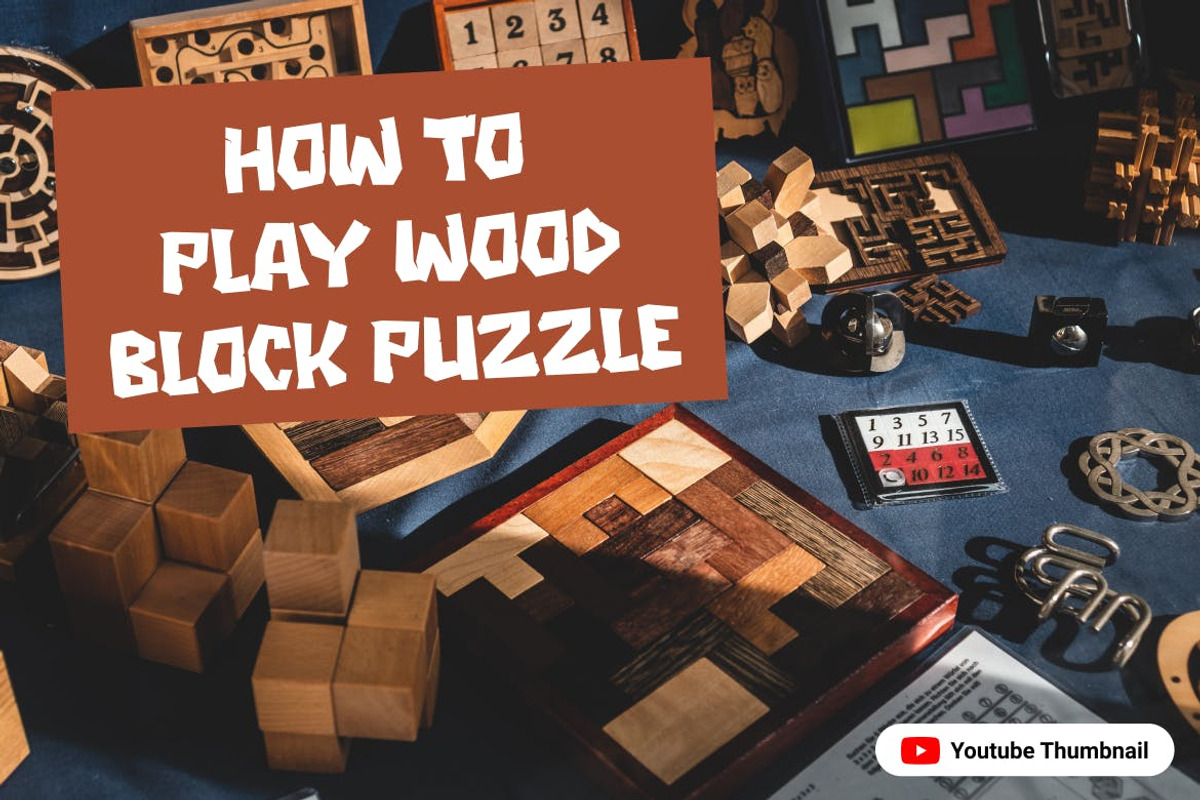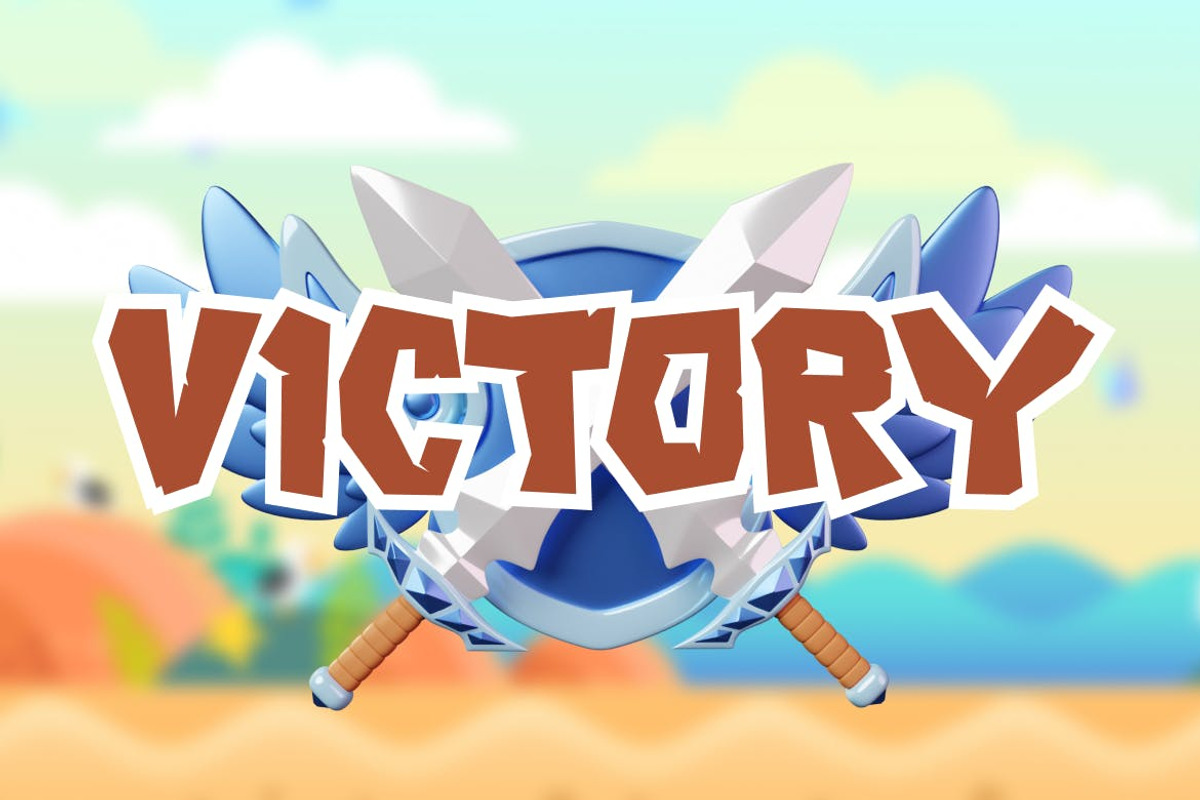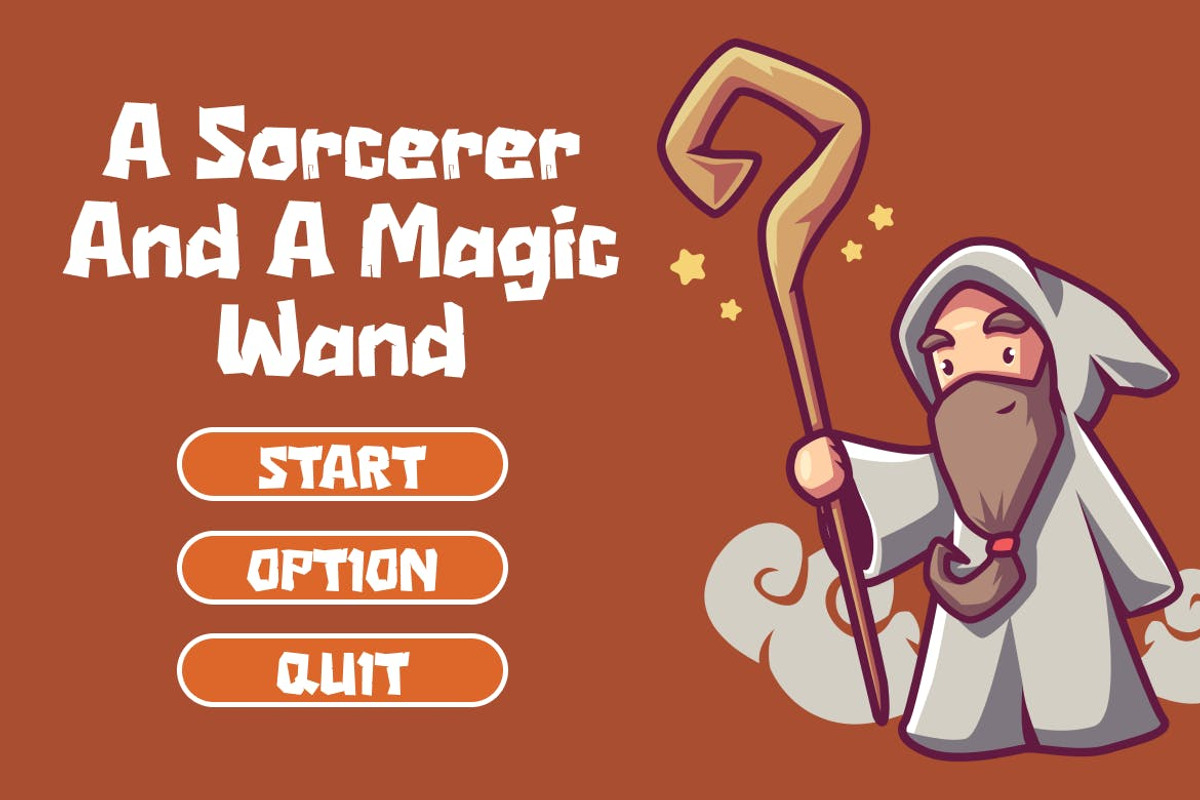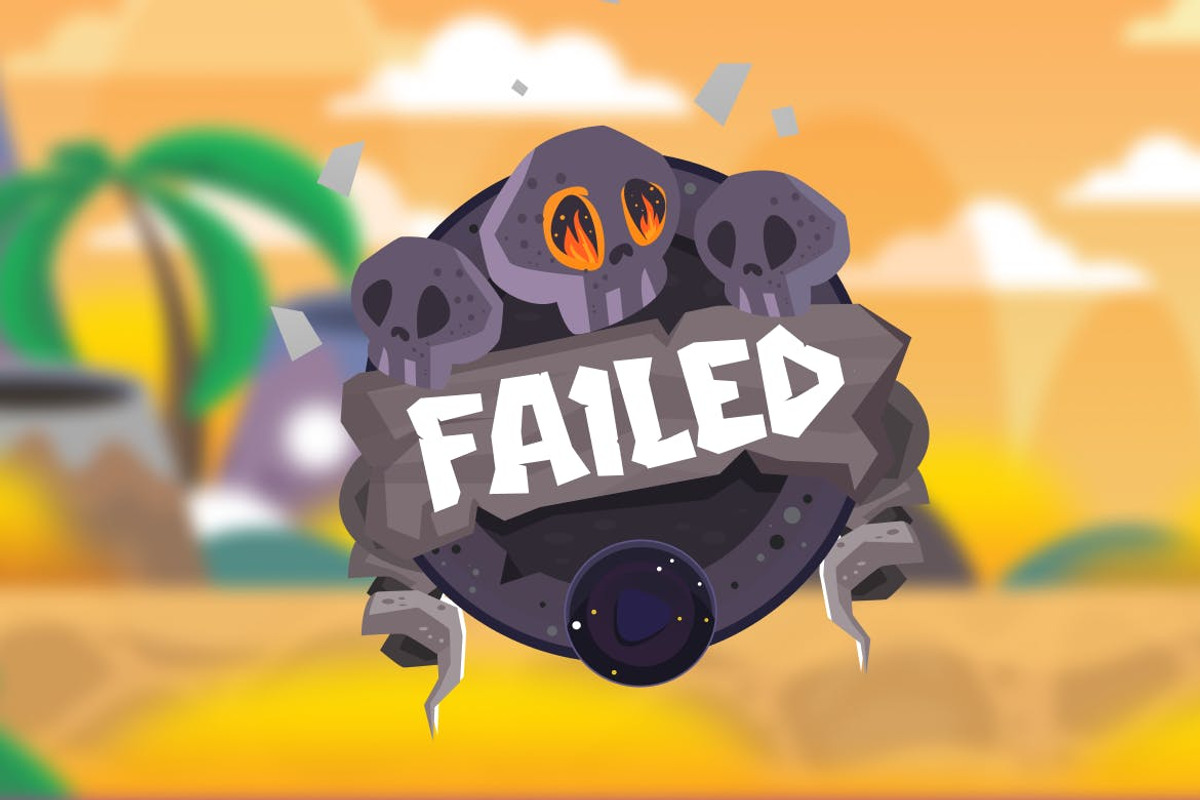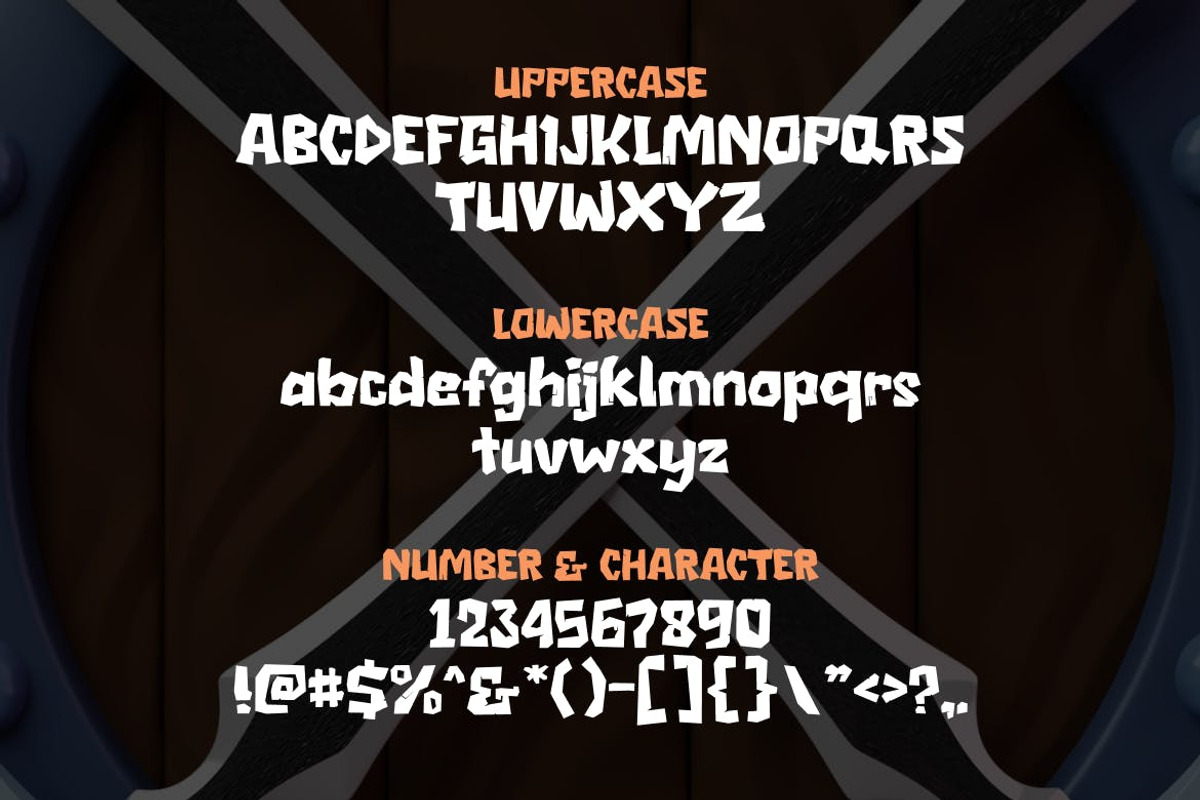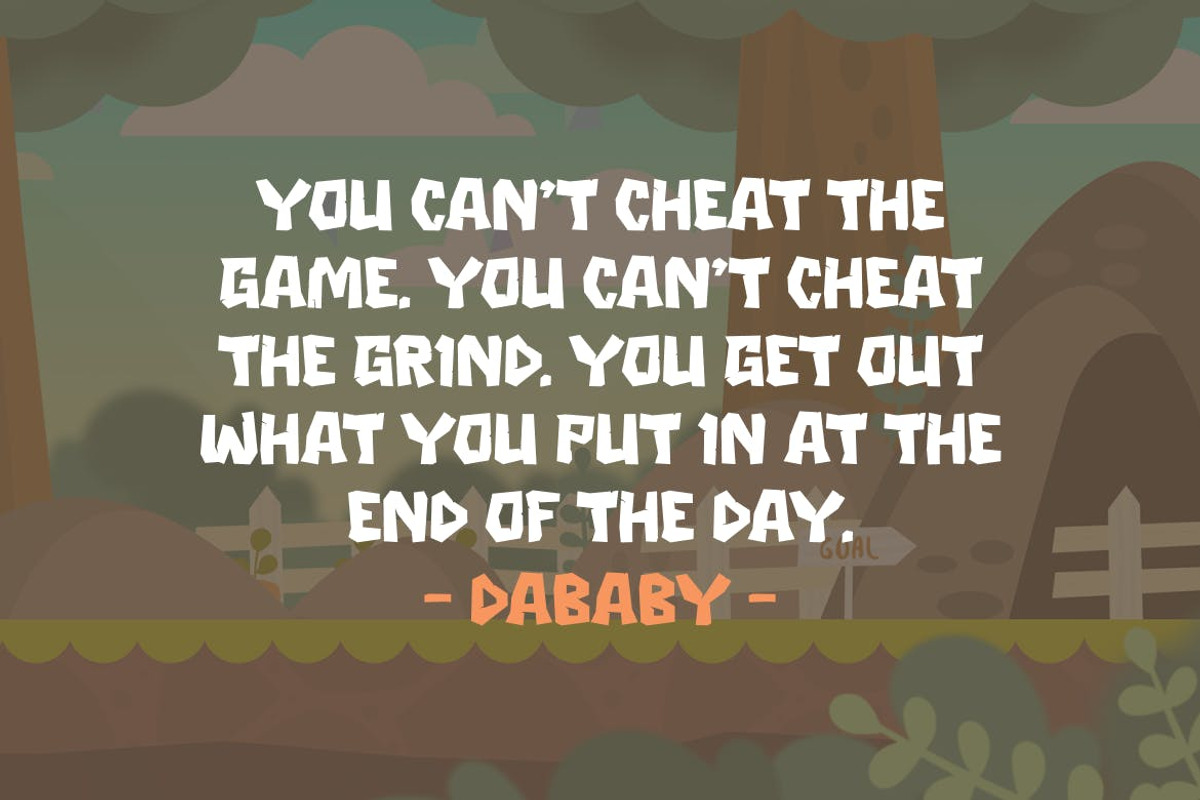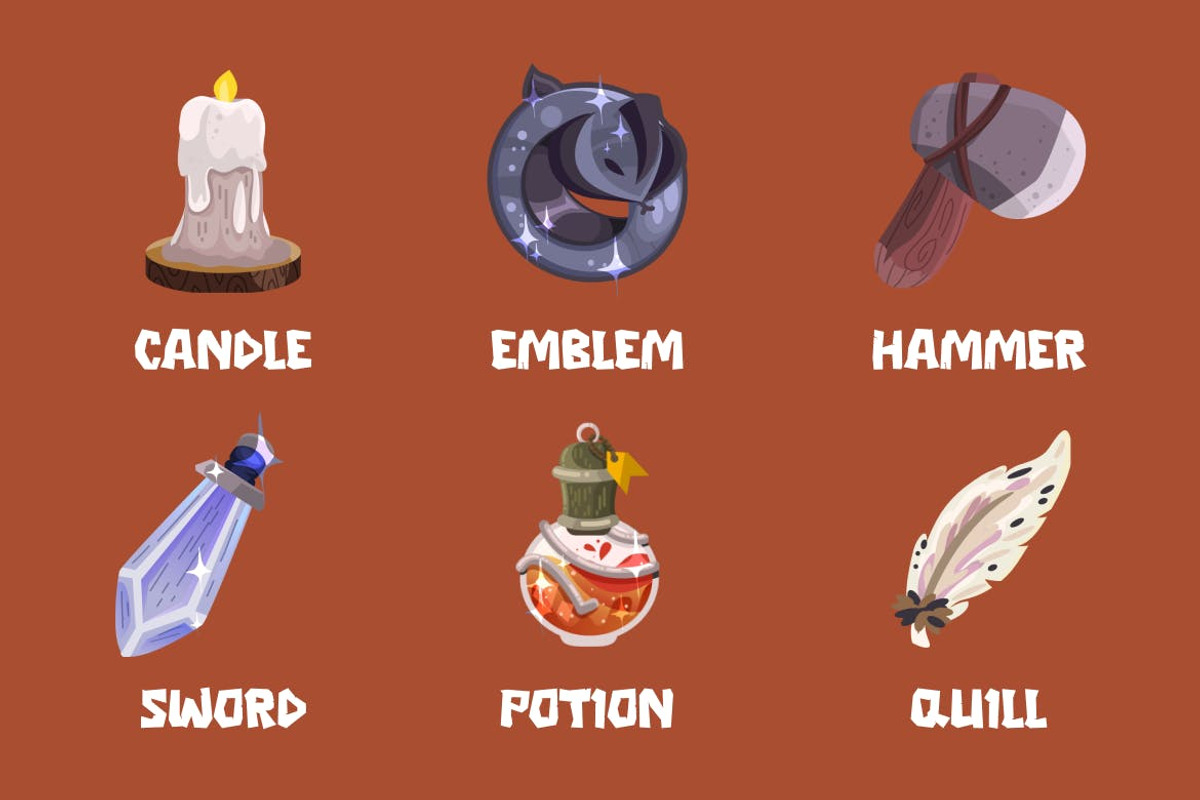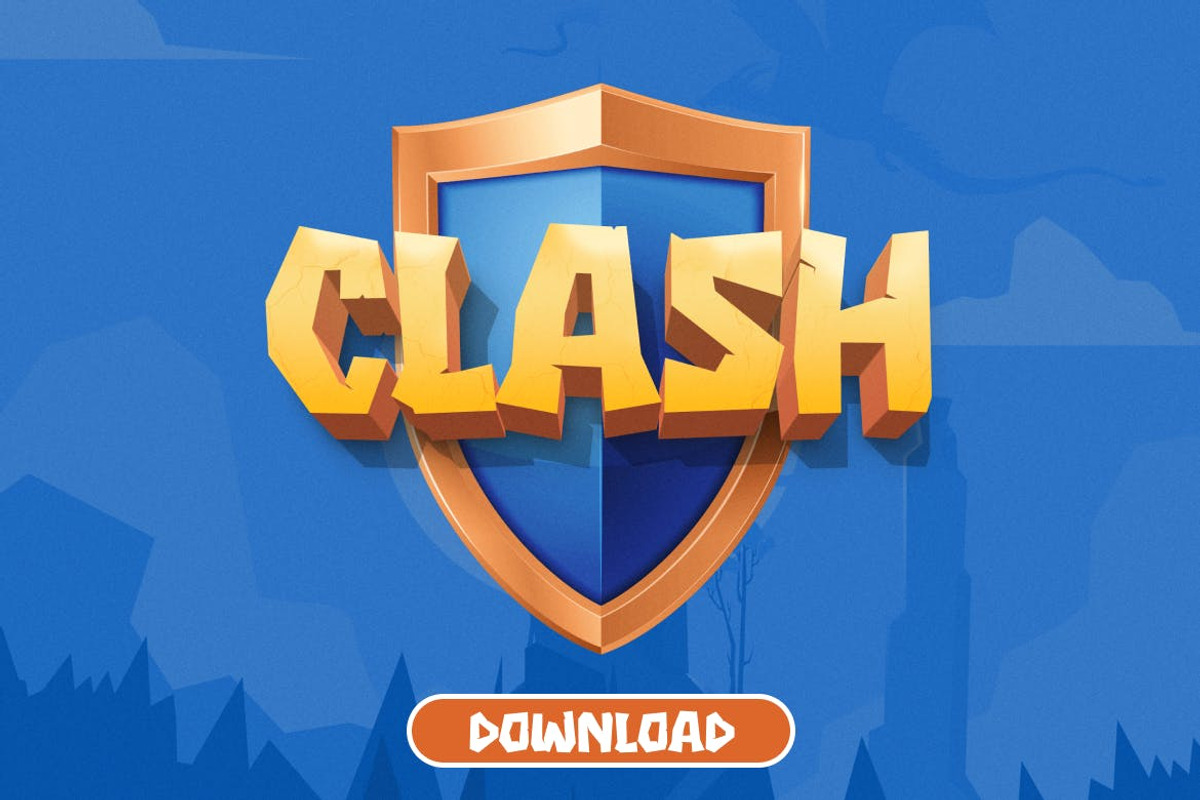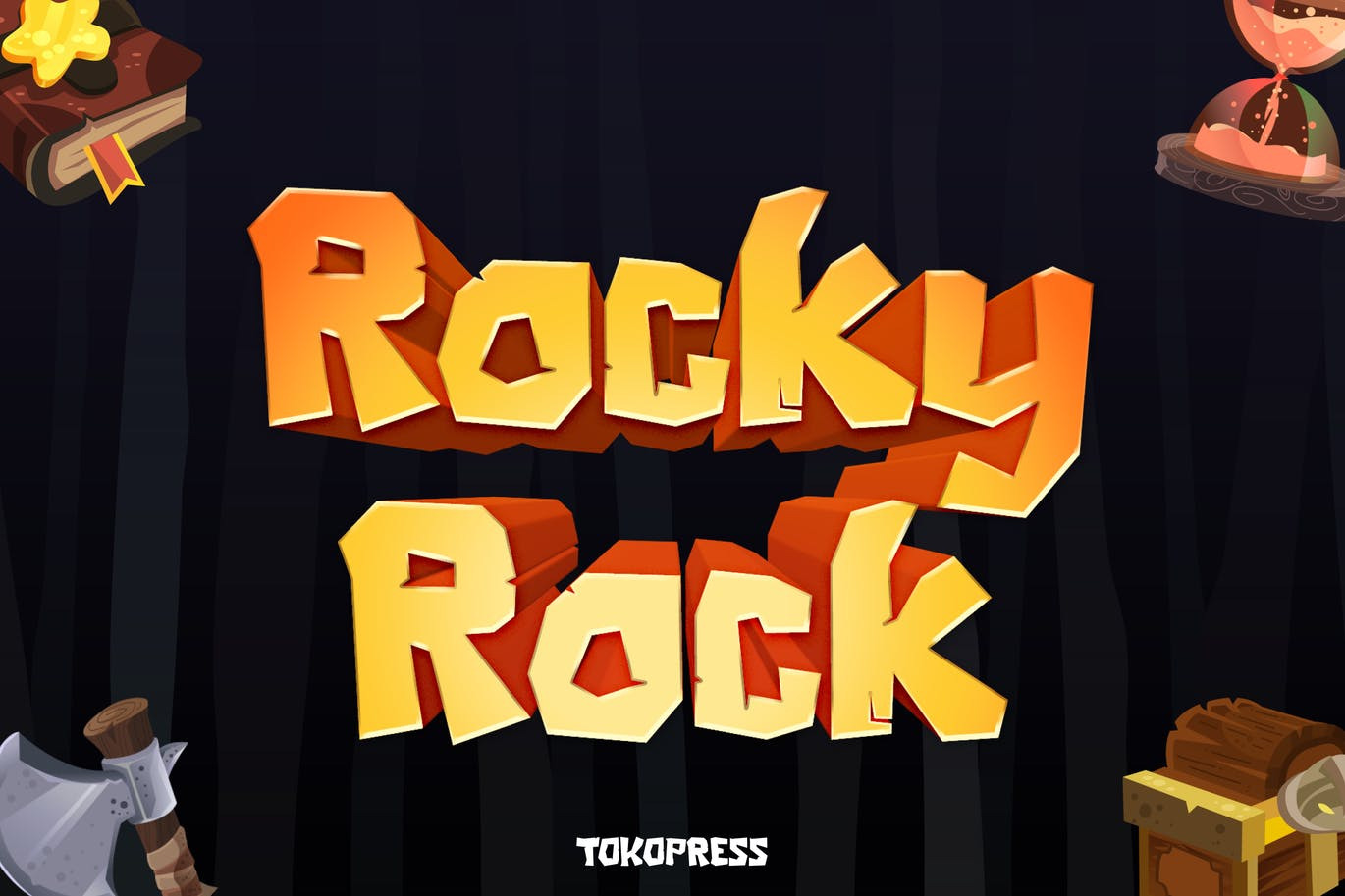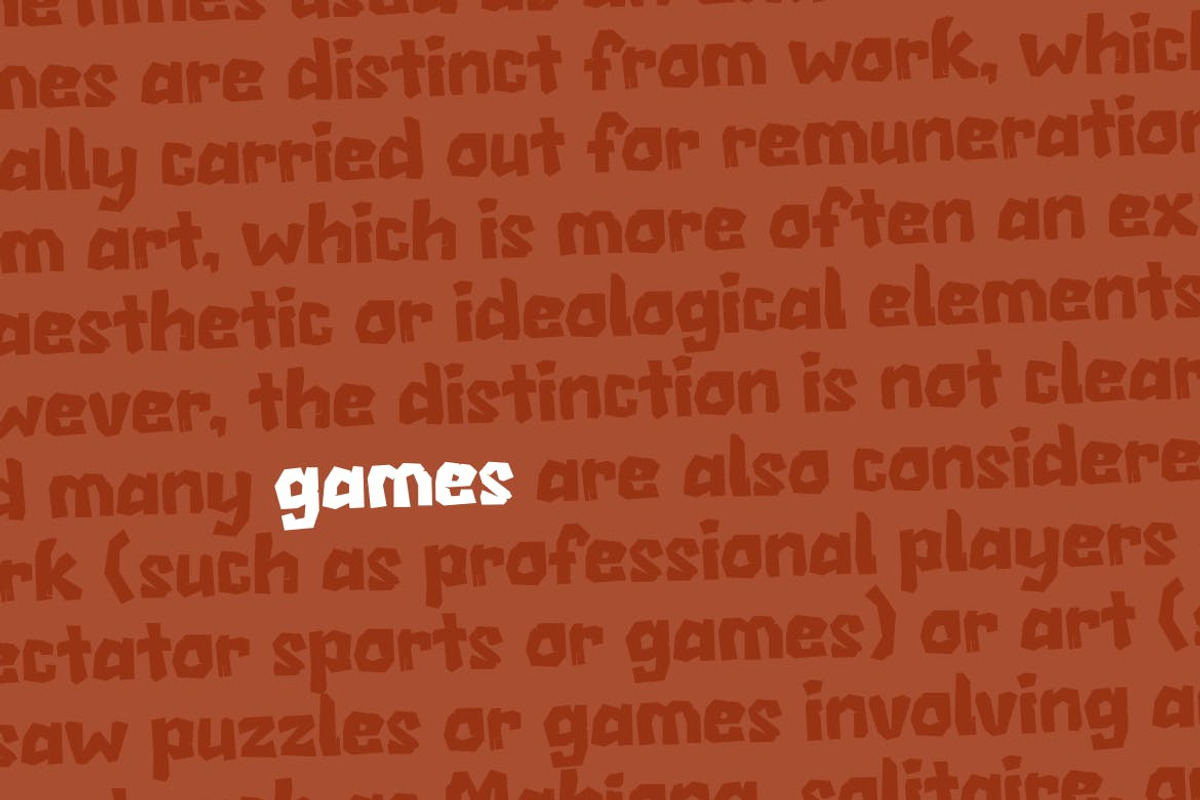
Rocky Rock- Gaming font
Feel like we dwell in the era of the dinosaur. The jagged and rocky look of the font will wow your audience.
Suit perfectly for kids market, online games, stationary, t-shirt and books cover font, poster, movie title, youtube covers, youtube thumbnails, social media page covers and so on...